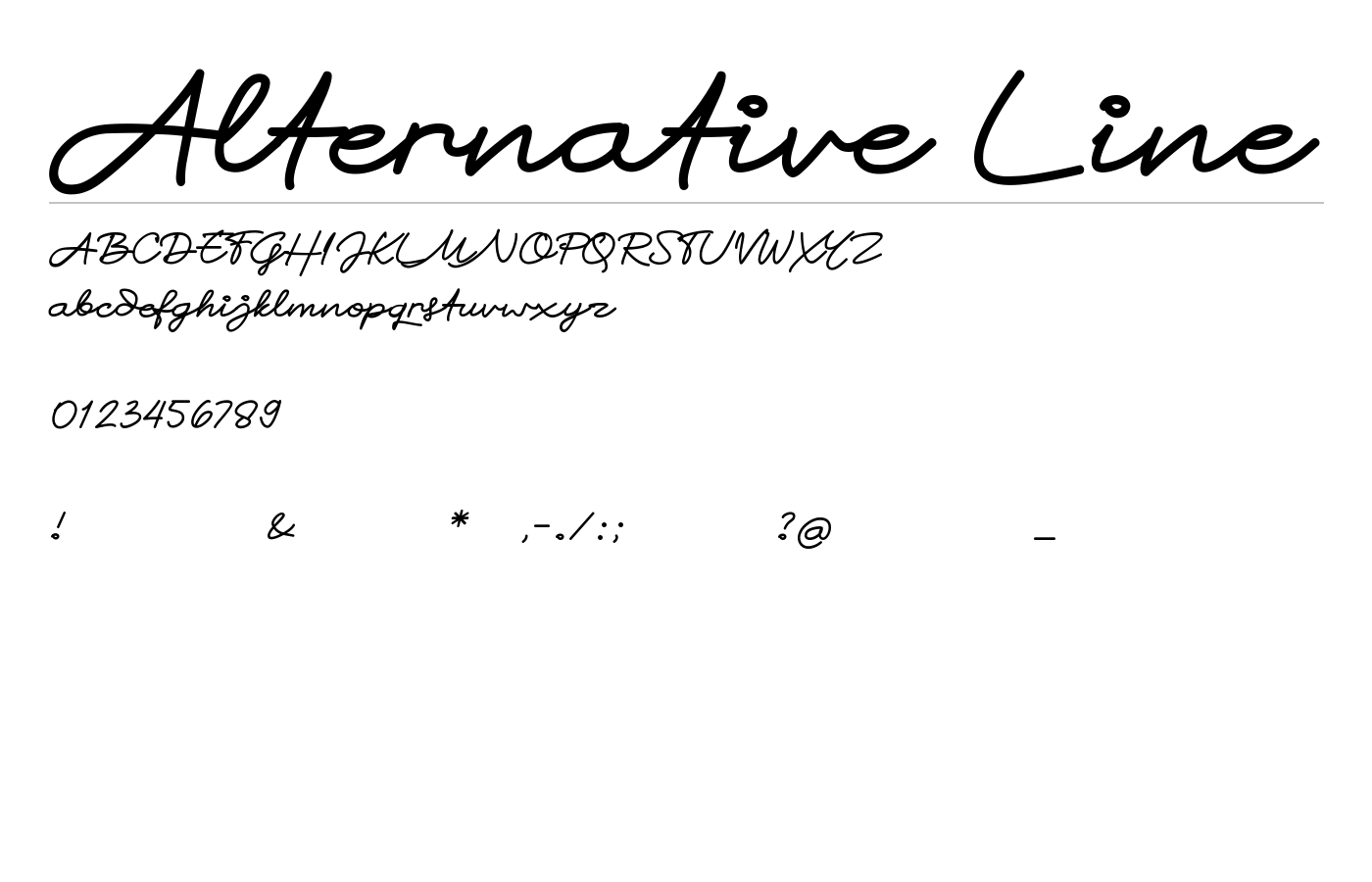
Alternative Line Font is a delicate and elegant handwritten script with a light weight and smooth, flowing strokes. It features slender, slightly slanted letterforms that convey a personal and refined feel, making it ideal for creative projects that need a touch of sophistication and warmth. This font works beautifully in invitations, branding, and editorial uses where a stylish yet approachable look is desired.
Alternative Line Font
About Alternative Line Font